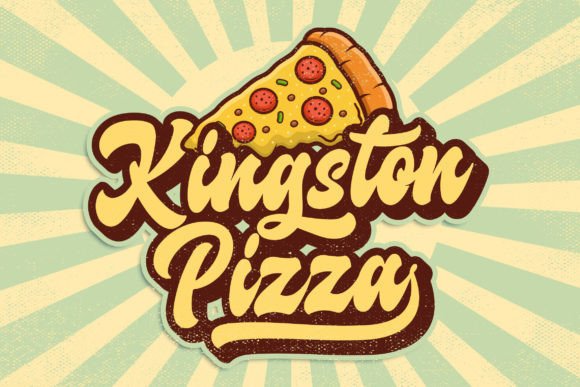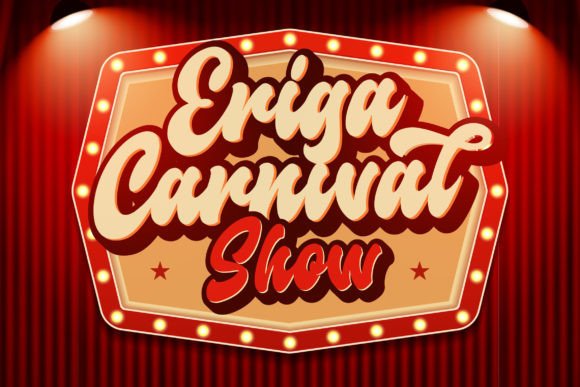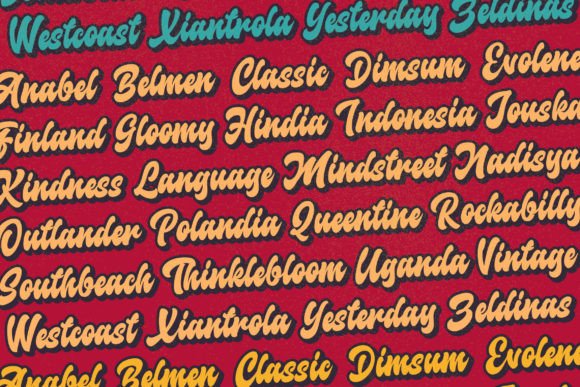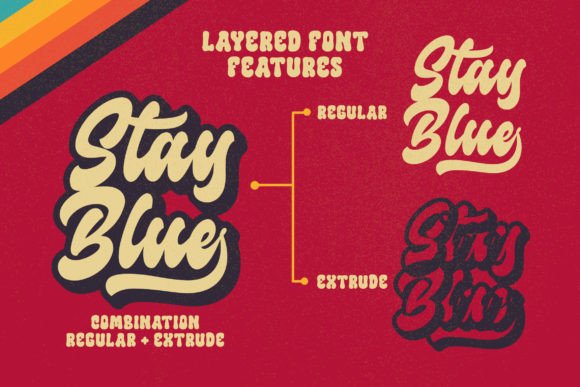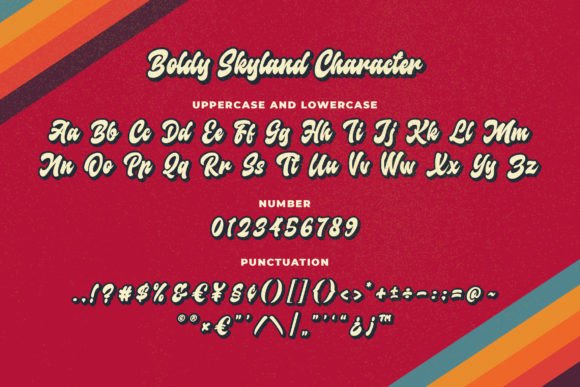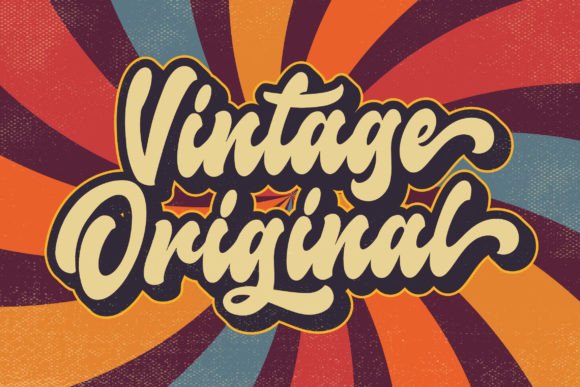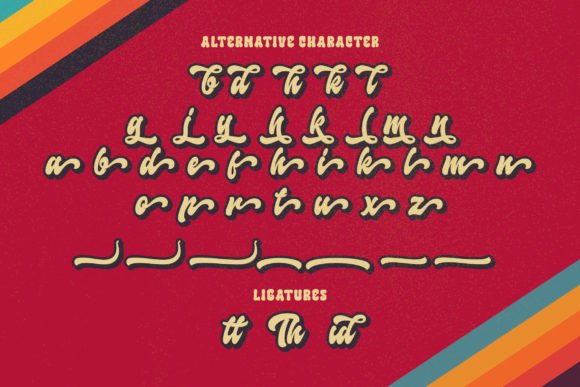
Boldy Skyline Font
Vintage Display Script for Retro-Inspired Design Projects
If you’re a fan of retro charm and artistic flair, the vintage display script Boldy Skyline is sure to impress. With its nostalgic curves and bold personality, this font brings a classic touch to any project. Whether you’re designing logos, wedding invitations, or signature branding, Boldy Skyline delivers timeless elegance with a fun twist.
Its dynamic form blends old-school aesthetics with modern versatility, making it a favorite for designers who want their work to feel authentic and expressive.
Discover Boldy Skyline: Playful, Bold, and Beautifully Vintage
Boldy Skyline isn’t just a font — it’s a whole mood. Inspired by retro signage and elegant handwriting, it combines thick, flowing strokes with graceful character shapes. As a result, this vintage display script stands out while maintaining a sense of harmony and sophistication.
Ideal for:
• Retro-style logos and branding kits
• Wedding invitations and event stationery
• Labels, tags, and product packaging
• Bold headings for posters and flyers
• Signature designs and watermark logos
• Stylish quote graphics and merch designs
It’s especially effective when paired with minimalist sans-serif fonts, offering contrast and personality in equal measure.
Moreover, Boldy Skyline is PUA encoded, which allows full access to all swashes, ligatures, and alternate characters — no advanced software required. You’ll have everything you need to add stunning detail to your typography.
Why Choose Boldy Skyline?
Designers love this font because it offers both style and substance. Here’s what makes it a standout:
• Bold retro aesthetic with modern usability
• Elegant curves and script-style flow
• PUA encoded for complete glyph access
• Great for both print and digital formats
This vintage display script doesn’t just look good — it performs beautifully across formats and applications.
Perfect for Creatives, Small Brands, and Retro Projects
Whether you’re building a nostalgic brand or designing a one-time passion project, Boldy Skyline delivers a professional yet personable look. It works particularly well for:
• Boutique branding and artisan labels
• Downloadable prints and Etsy products
• Wedding logo monograms and decor
• Handmade packaging and brand kits
• Retro-themed blog graphics and apparel
Its unique combination of playfulness and refinement ensures your message gets noticed — and remembered.
Boldy Skyline brings a vibrant, nostalgic energy to the world of typography. As a vintage display script, it bridges eras by merging classic letterforms with a fresh, contemporary feel. Whether you’re after elegance, boldness, or vintage charm, this font has you covered.